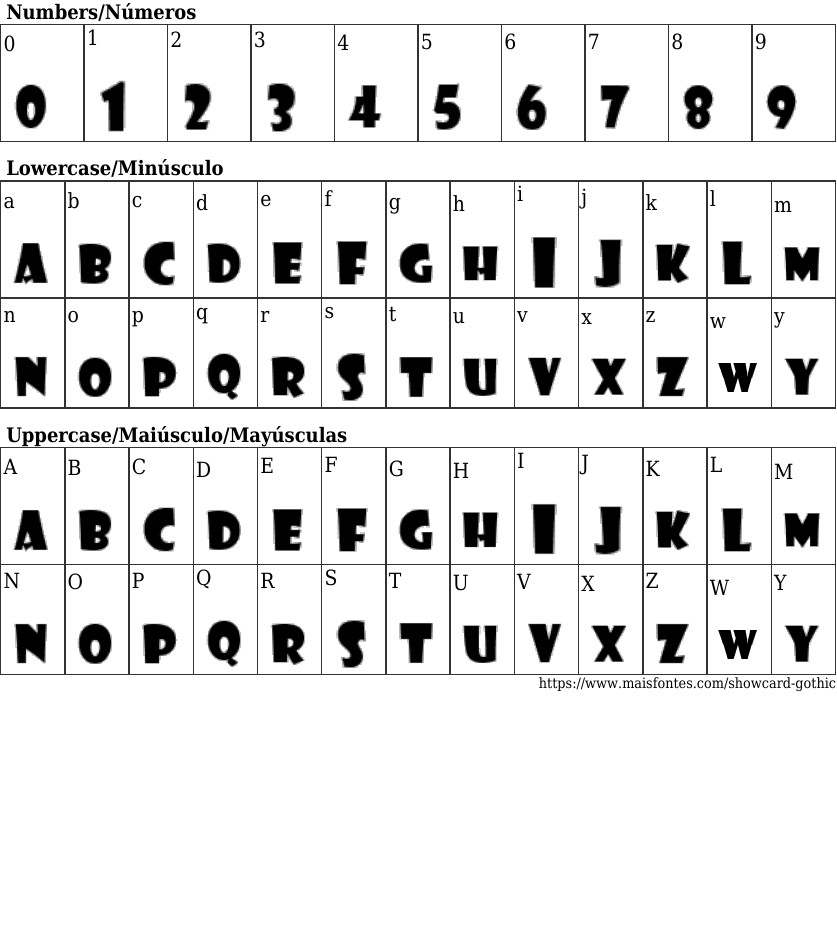
Its retail library includes some of the most celebrated fonts on the market. Ad download 100's of fonts, graphic assets, actions, icons & more! Derived from the showcard models prepared for lettering artists in the twenties and thirties, showcard gothic goes a step beyond poster black, providing a cheerfully theatrical air to any.